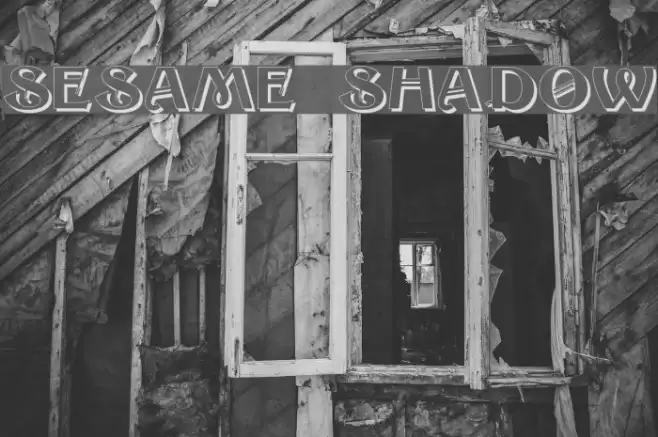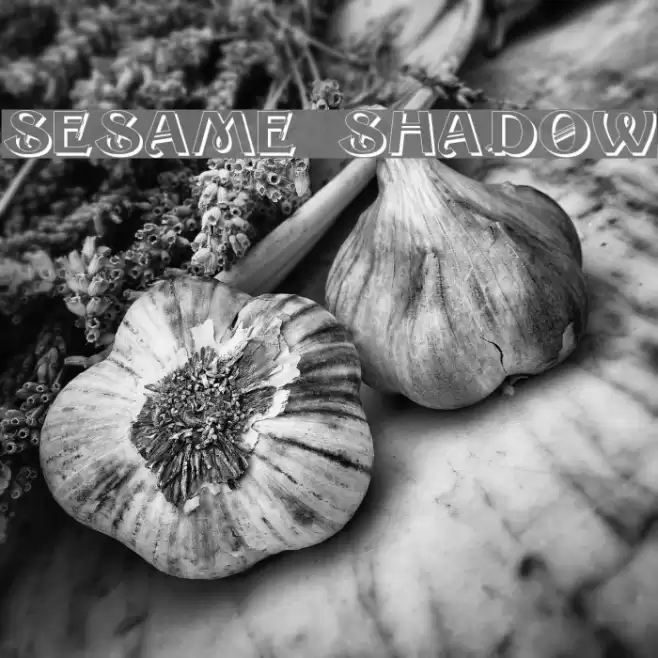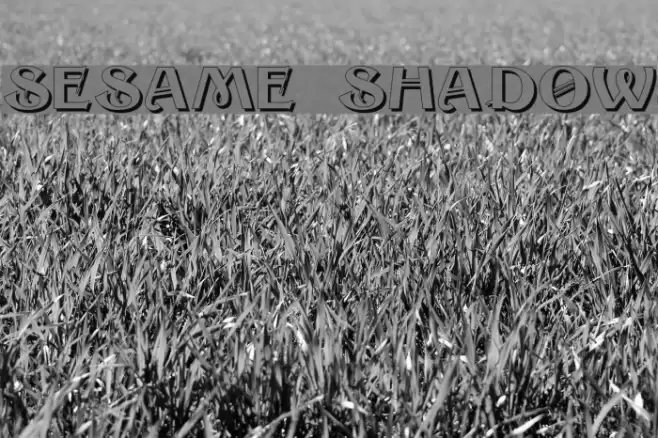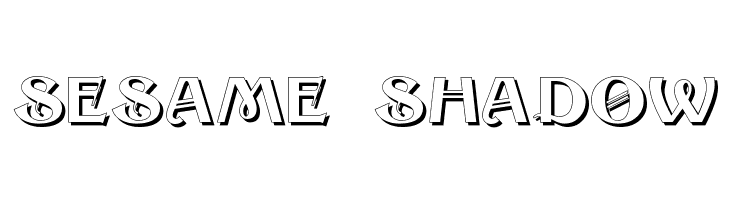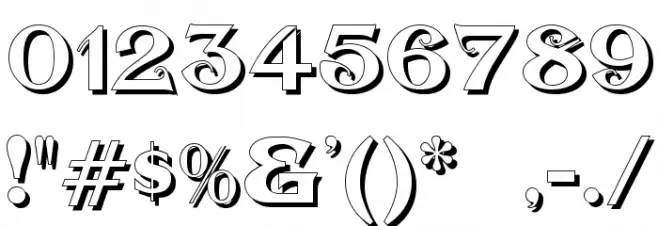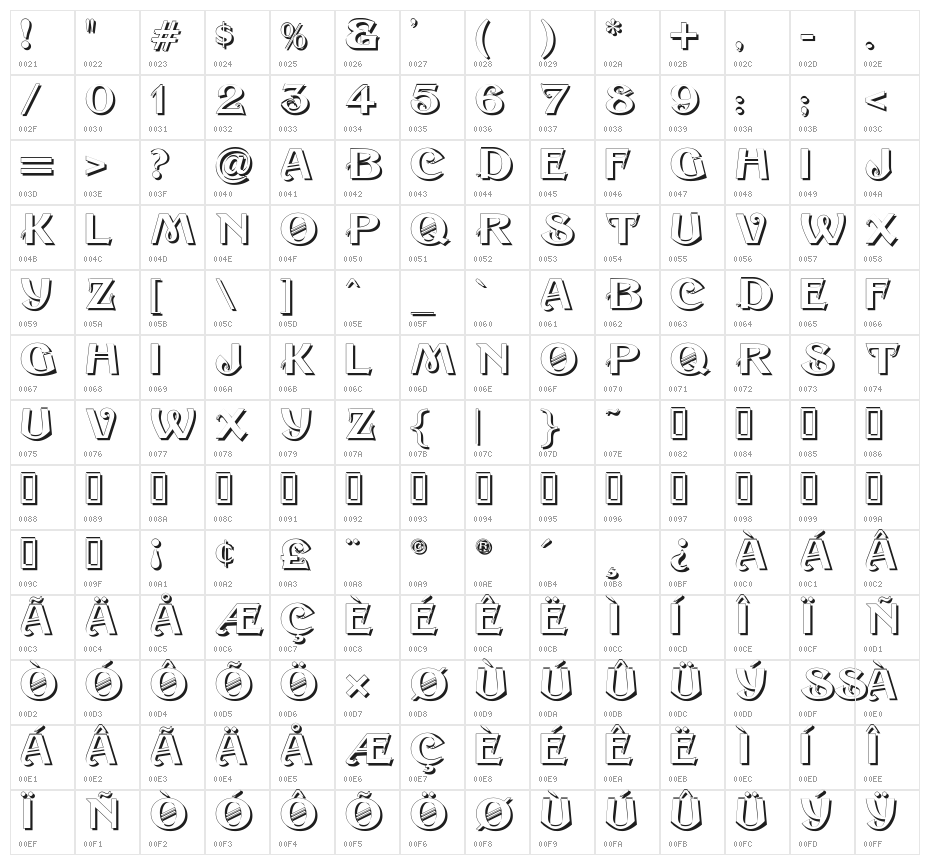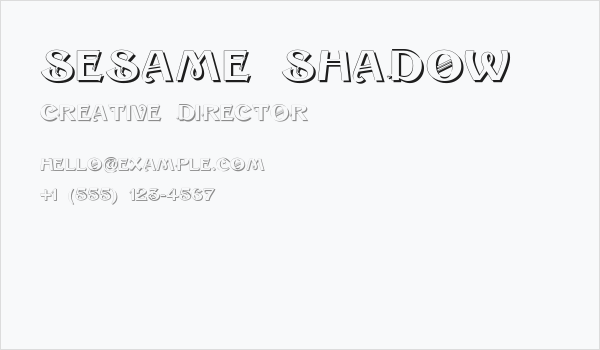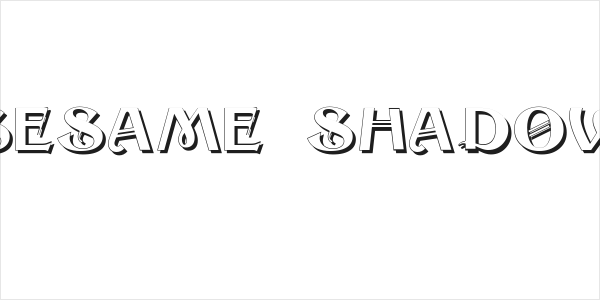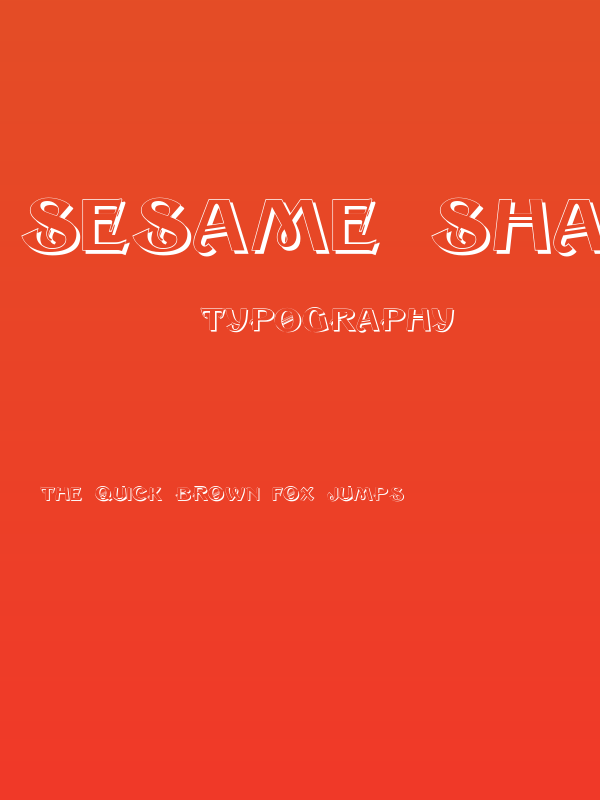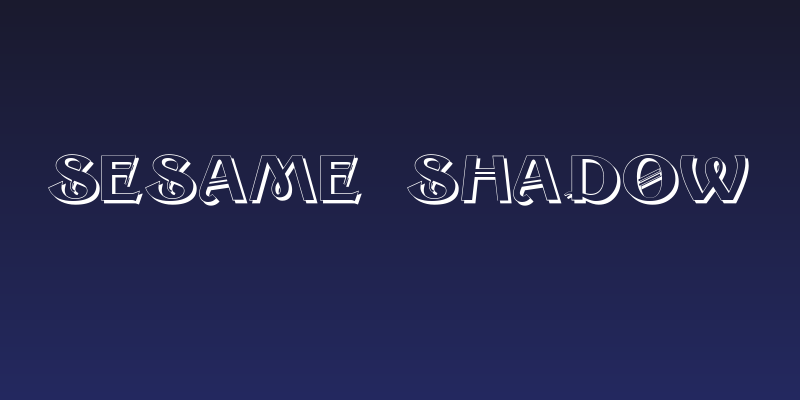
Sesame Shadow Font
Sesame Shadow Description
This font features a bold and playful design with a distinct shadow effect that gives it a three-dimensional appearance. The characters are uppercase and lowercase letters, numbers, and a variety of special symbols. Each letter is outlined with a thick black shadow that enhances its visibility and creates a striking contrast against the white fill. The style is reminiscent of retro or vintage signage, making it ideal for projects that require a touch of nostalgia or a bold statement. The font's unique shadowing adds depth and character, making it stand out in any design.
Bold, playful font with a distinctive shadow effect for a three-dimensional look from Retro fonts.
- Proposed Projects: Ideal for retro-themed posters, eye-catching headlines, playful branding, and creative logos.
- Overall Style: Vintage